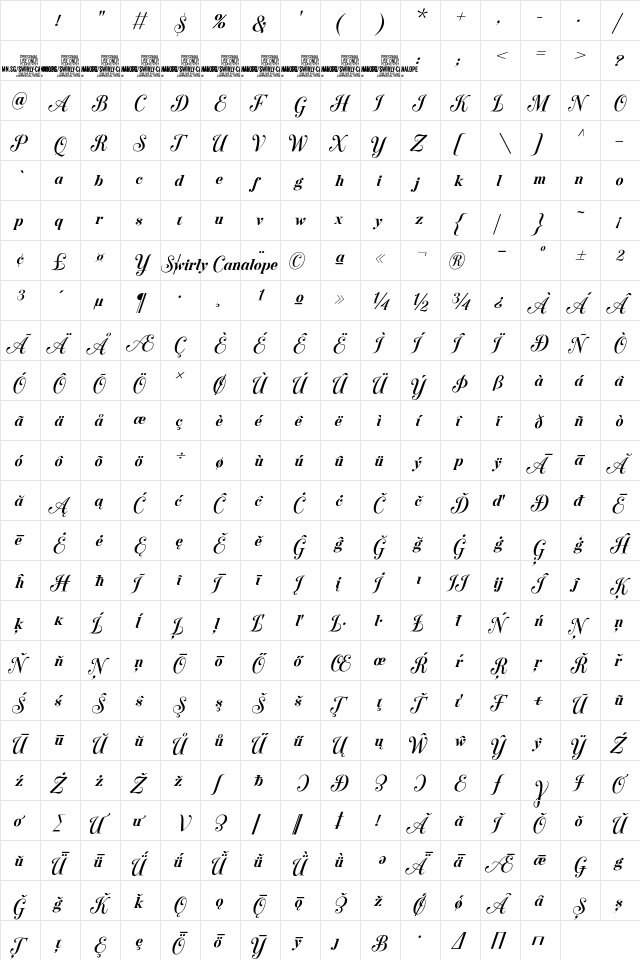
Complete Swirly Canalope PERSONAL USE Regular glyph index. Displaying only characters natively supported by Swirly Canalope PERSONAL USE Regular font.
Swirly Canalope PERSONAL USE is built around its visual character rather than neutral utility - its distinctive forms are designed to make an impression at display sizes.
Font Pairing: Pair with a clean neutral sans-serif for body copy to let Swirly Canalope PERSONAL USE's character lead without overwhelming the composition.
Pro Tip: Use Swirly Canalope PERSONAL USE exclusively at display sizes - it was designed to be seen, not read at length. Let a neutral companion handle body copy.